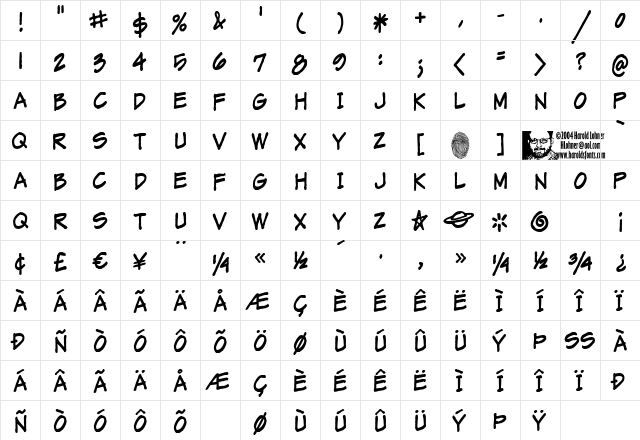
MarkerMan Regular Font Preview
MarkerMan Regular
MarkerMan Regular Font Details
Design Context for MarkerMan Typeface
MarkerMan is a composed and adaptable typeface that performs quietly and consistently across a wide range of design contexts.